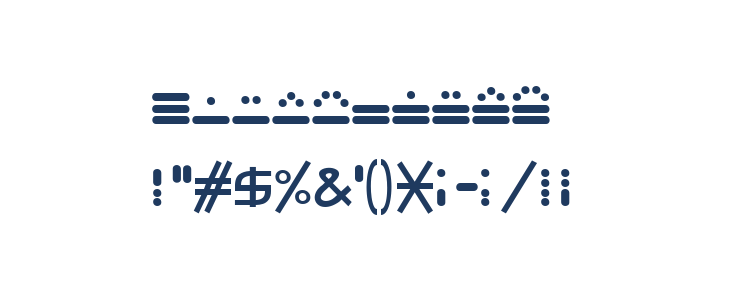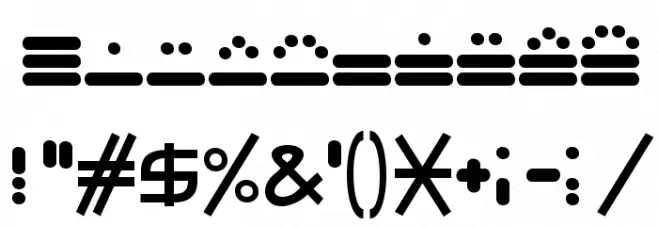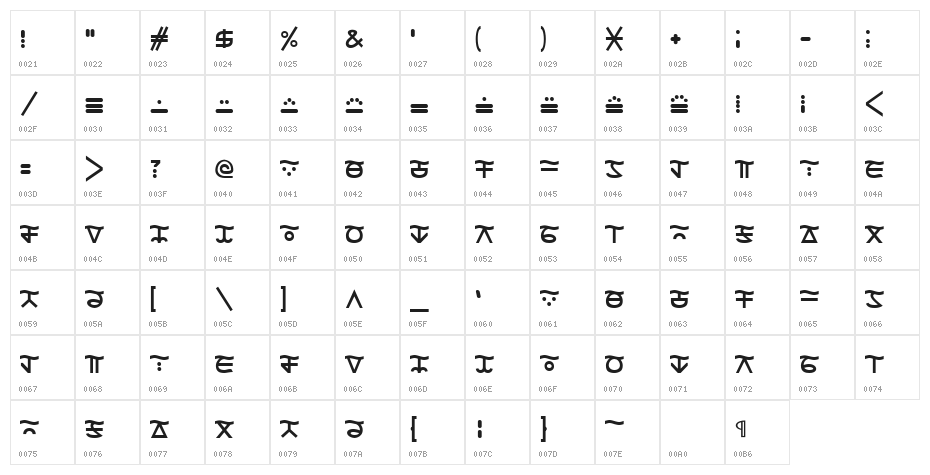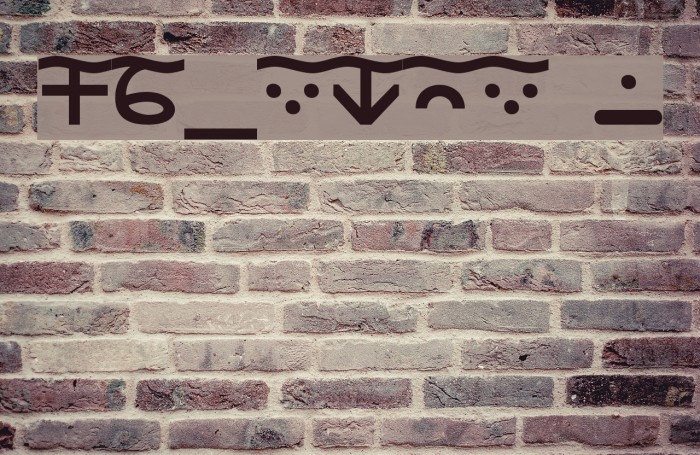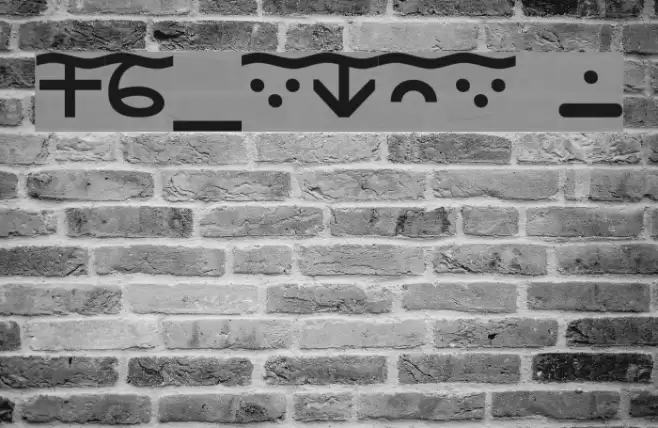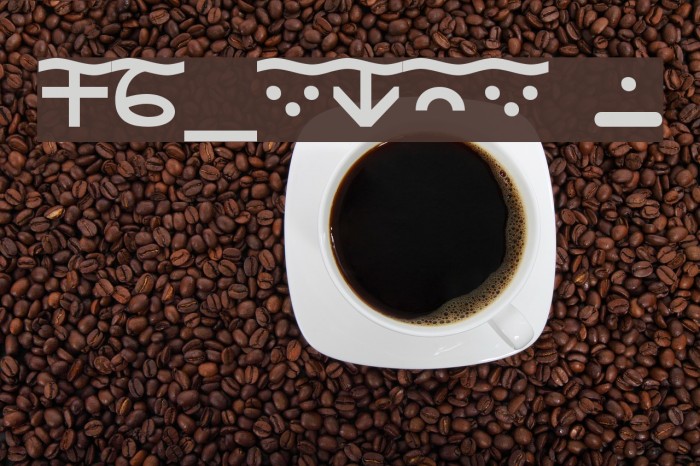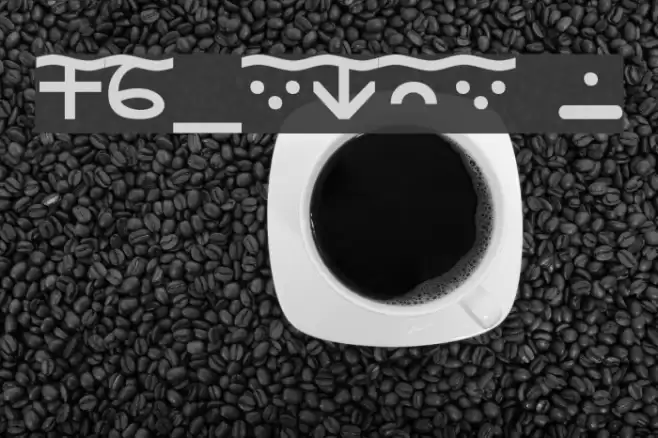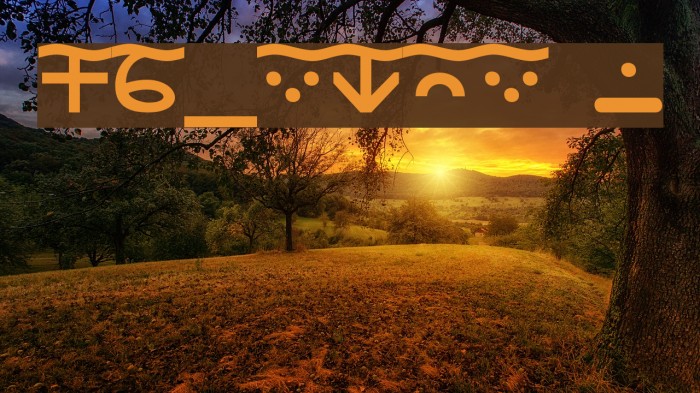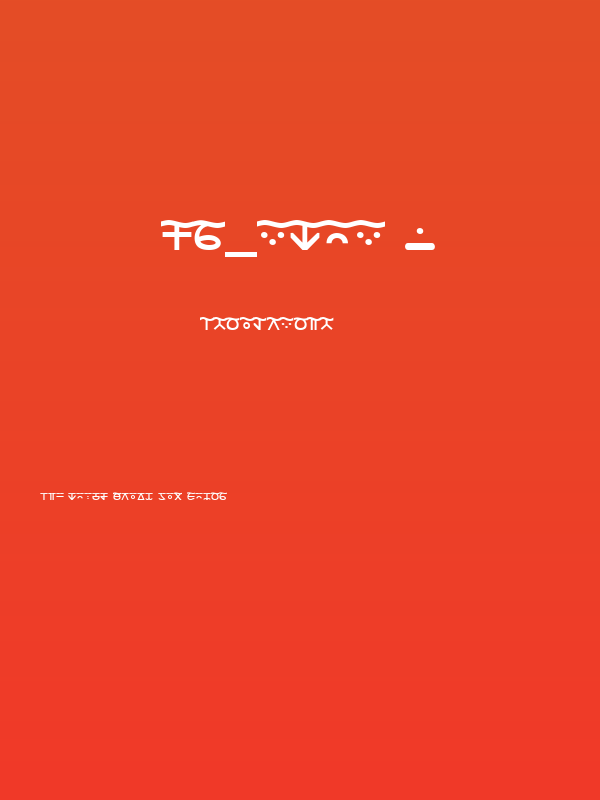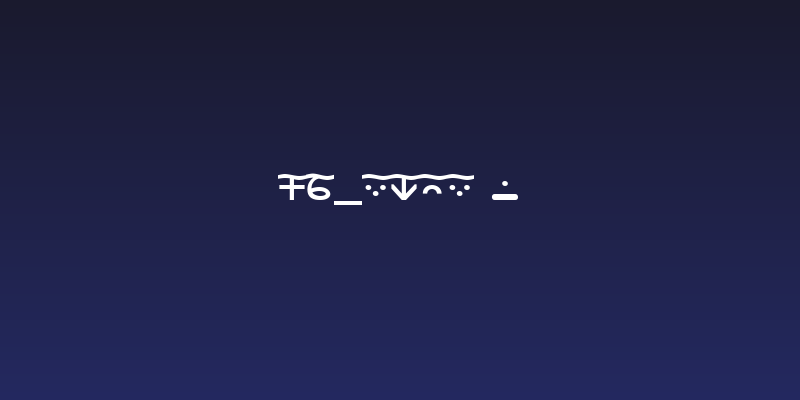
DS_Aqua 1 Font
DS_Aqua 1 Description
This font features a highly decorative and abstract style, with characters that resemble a mix of geometric shapes and symbols. The letters are composed of thick, bold strokes with unique curves and angles, giving them an artistic and unconventional appearance. The font includes a variety of special characters and punctuation marks, each designed with the same creative flair. The overall look is modern and avant-garde, making it suitable for projects that require a distinctive and eye-catching typeface.
| Overall Style | Modern, Avant-garde |
| Use Case | Logos, Headlines, Artistic designs |
| Proposed Projects | Ideal for creative projects such as posters, album covers, or branding that seeks a unique and artistic touch. |